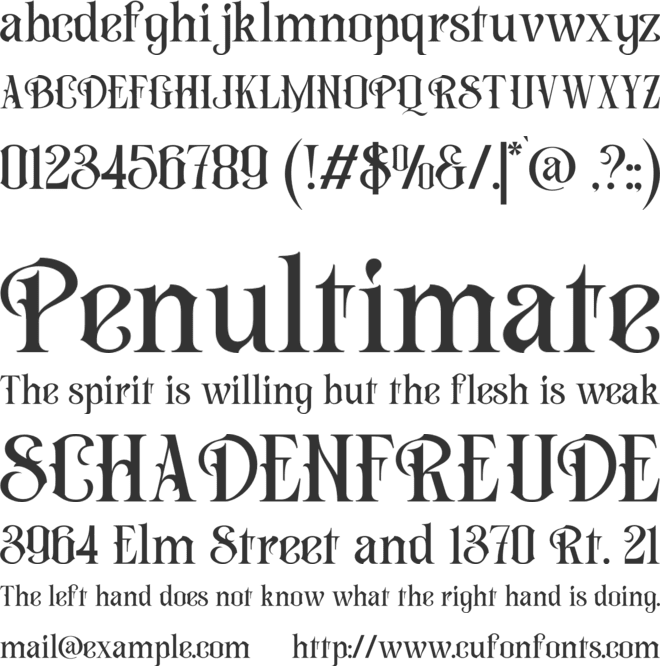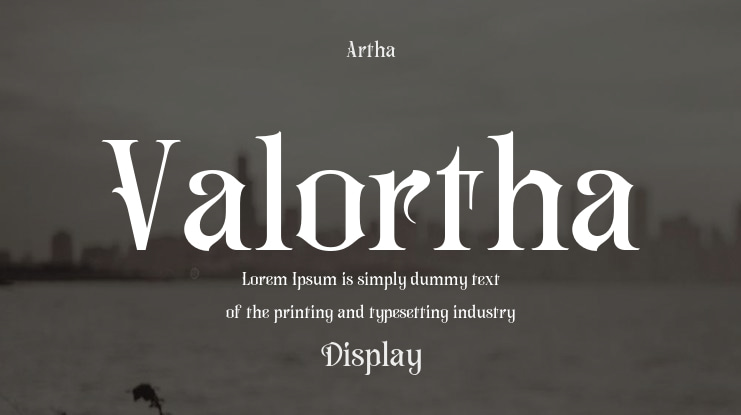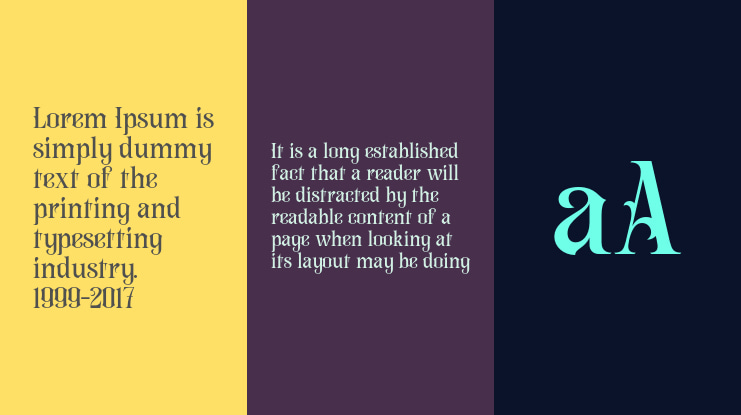
Valortha Font
Step back into an era of majestic grandeur with Valortha, a classic historical Victorian display font handcrafted by Burntilldead Studio. Inspired by vintage 19th-century typography, royal heraldry, and ornate label designs, Valortha combines sharp, elegant serifs with flowing, decorative swashes.
Perfect For:
- Vintage Wine & Spirits Bottle Labels, Brewery Packaging
- Royal Playing Cards, Magic Deck Designs & Tarot Cards
- Vintage Barbershop Signage, Cigarettes & Cigar Box Branding
- Luxury Logo Identity, Monograms & Crests
- Victorian Event Posters, Book Covers & Historical Banners